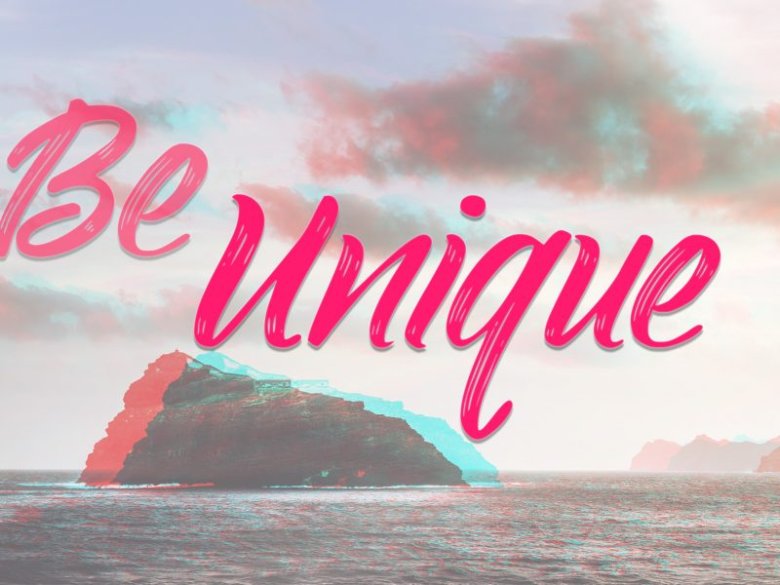
Youth Touch © Typeface
Youth Touch offers beautiful typographic harmony for a variety of design projects, including logos & branding, wedding designs, social media posts, advertisements, product designs, magazines and others.